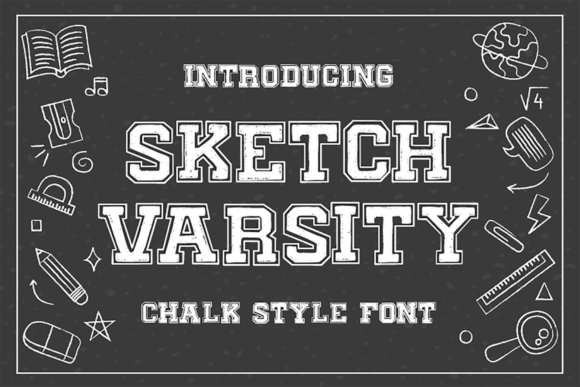
Sketch Varsity: A Bold Slab Serif for Editorial Design
As I embarked on redesigning the header for my lifestyle blog, I knew I needed a font that would not only catch the eye but also set the tone for the entire site. Skech Varsity, with its bold and thick lettered slab serif style, was the perfect choice. This font brings a unique blend of strength and elegance, making it an ideal candidate for creating a memorable and impactful blog header.
Sketch Varsity for Blog Headers and Article Titles
One of the key elements in any blog or digital publication is the header. It's the first thing your readers see, and it needs to make a strong impression. Sketch Varsity does just that. Its robust and commanding presence makes it an excellent choice for blog headers and article titles. The font's thick, well-defined strokes ensure that the text stands out, even against a busy background, drawing the reader's attention immediately.
Sketch Varsity in Magazine Covers and Ebook Titles
When it comes to designing magazine covers and ebook titles, Sketch Varsity continues to shine. The font's bold and thick characteristics make it a standout choice for these high-impact areas. Whether you're creating a cover for a lifestyle magazine or an elegant recipe ebook, Sketch Varsity adds a touch of sophistication and modernity. The font's clean lines and strong presence ensure that your title is both readable and visually appealing, making it a perfect fit for editorial design.
Using Sketch Varsity for Wedding Invitations and Elegant Branding
Wedding invitations and elegant branding materials require a font that can convey both formality and charm. Sketch Varsity fits this bill perfectly. Its bold and thick lettering provides a sense of importance and grandeur, while the slab serif style adds a touch of classic elegance. This combination makes Sketch Varsity an excellent choice for wedding invitations, where the font can help set the tone for the event and create a lasting impression on the guests.
Sketch Varsity in Newsletters and Coaching Workbooks
For newsletters and coaching workbooks, readability and visual appeal are crucial. Sketch Varsity strikes the right balance between these two elements. When used for section headings, pull quotes, and other highlighted text, the font draws the reader's eye and emphasizes important information. Its bold and thick lettering ensures that the text is easily legible, even in smaller sizes, making it a versatile choice for various sections of your newsletter or workbook.
Practical Font Pairing with Sketch Varsity
To create a cohesive and visually pleasing design, it's essential to pair Sketch Varsity with complementary fonts. For body copy, consider using a clean and readable serif or sans serif font. This pairing allows Sketch Varsity to stand out as a display font, while the body text remains easy to read. For example, you might use a classic serif like Garamond or a modern sans serif like Helvetica for the main content, allowing Sketch Varsity to take center stage in the headings and titles.
Readability Considerations for Screen and Print
When using Sketch Varsity in digital formats such as websites, ebooks, and PDFs, it's important to consider how the font renders on different screens. The font's bold and thick lettering ensures good visibility, but it's always a good idea to test it across various devices and screen sizes. For print materials, Sketch Varsity works beautifully, especially for headlines and short blocks of text. However, for longer passages, it's best to use a more traditional serif or sans serif font to maintain readability.
Checking Included Styles and Licensing for Sketch Varsity
Before incorporating Sketch Varsity into your projects, it's important to check the included styles, alternates, ligatures, and weights. Many premium fonts come with a variety of options that can enhance your design. Additionally, ensure that the font includes multilingual support if you plan to use it for international publications. Lastly, review the commercial licensing terms to confirm that you can use the font in your specific project, whether it's an ebook, printable guide, or client publication.
In conclusion, Sketch Varsity is a versatile and powerful slab serif font that can elevate your editorial design projects. Its bold and thick lettering makes it an excellent choice for blog headers, magazine covers, wedding invitations, and more. By carefully considering its use and pairing it with complementary fonts, you can create a visually stunning and highly readable design that resonates with your audience.